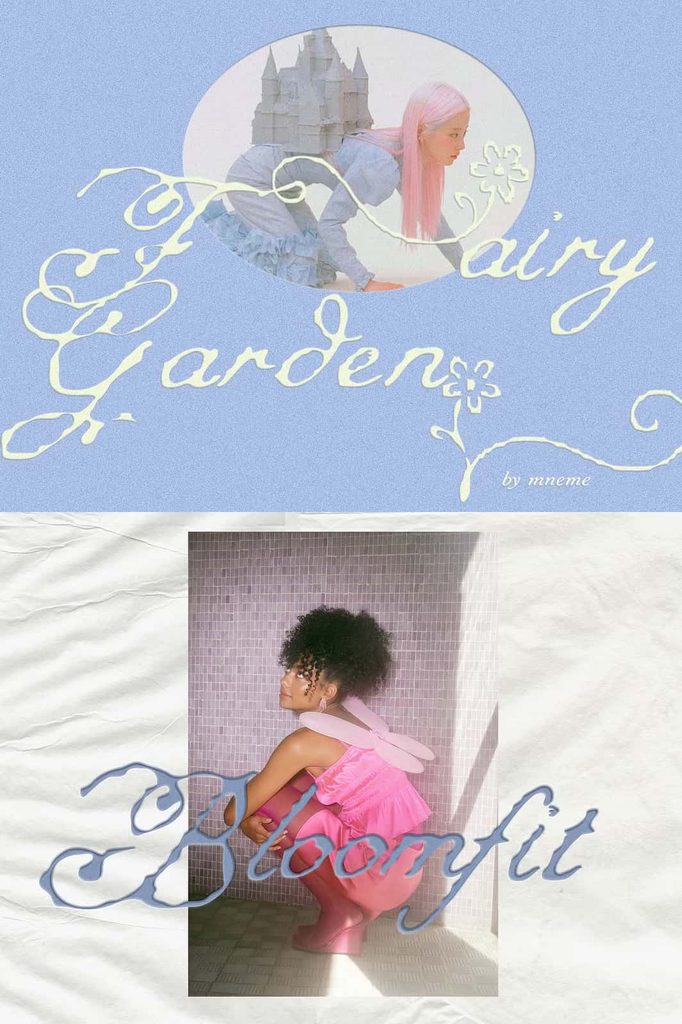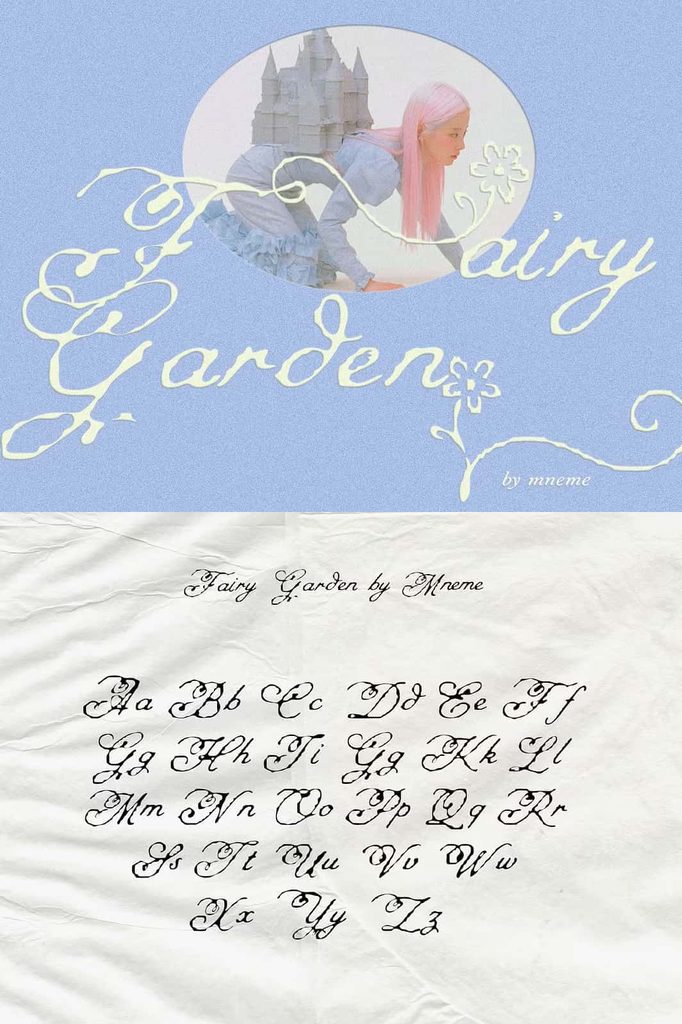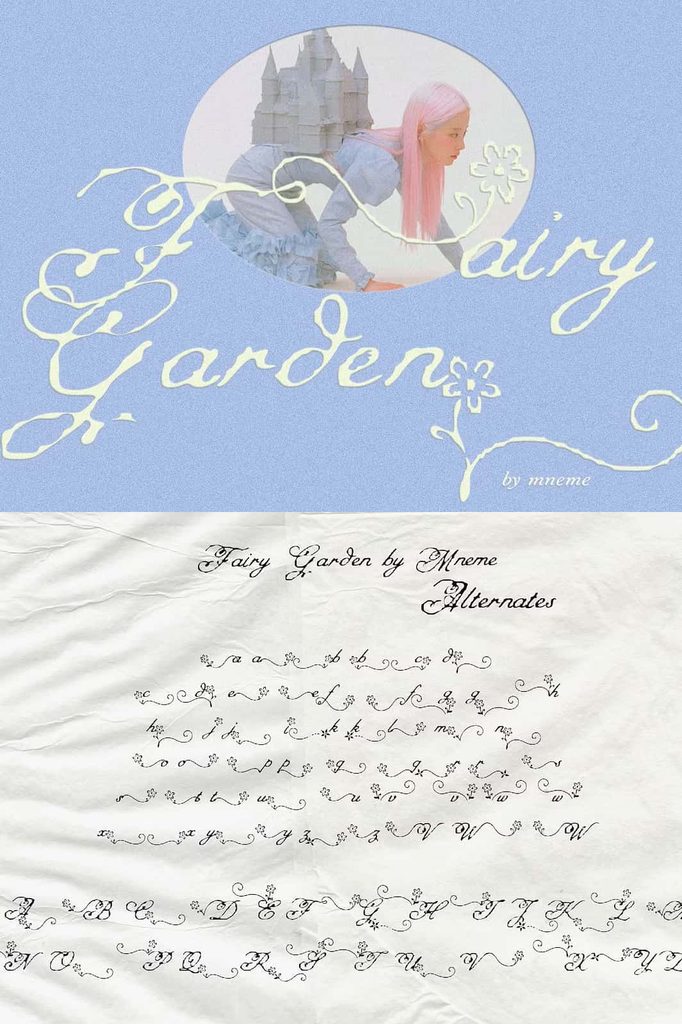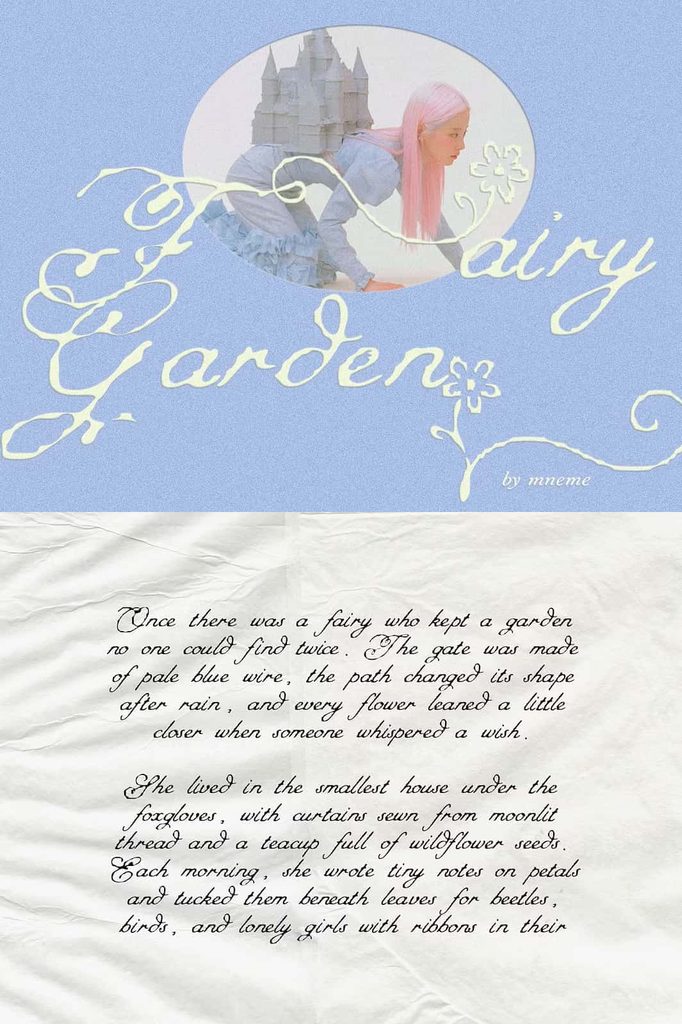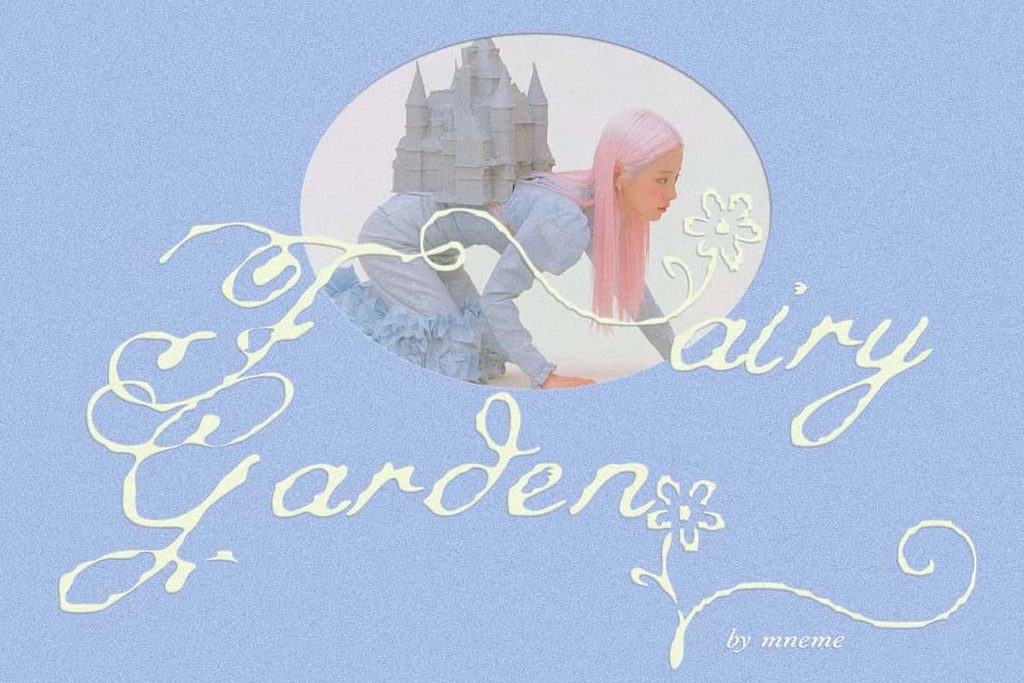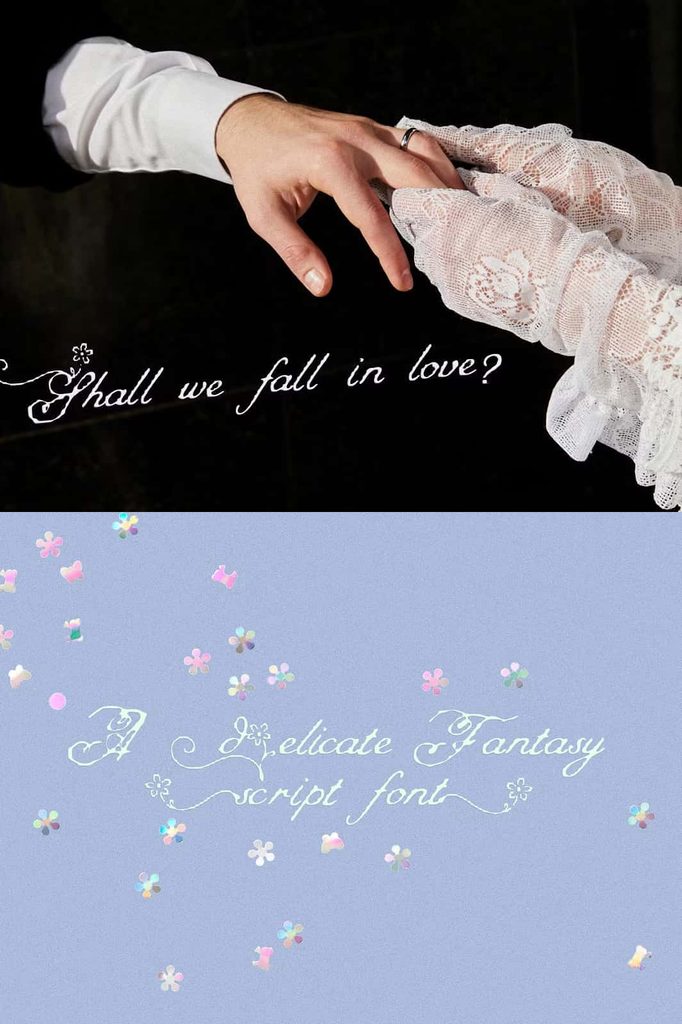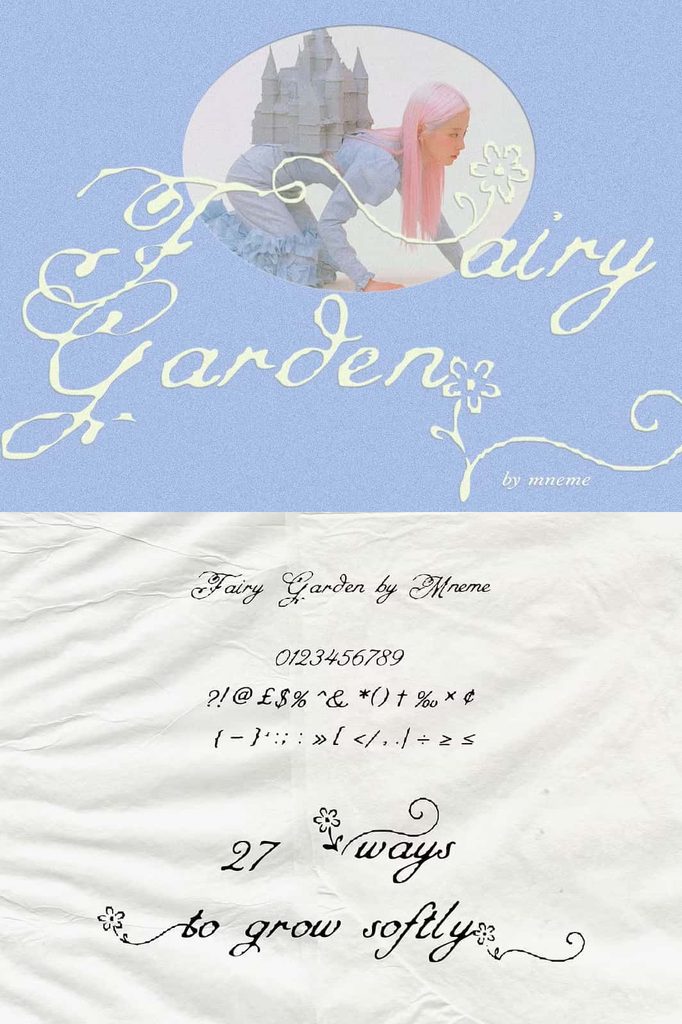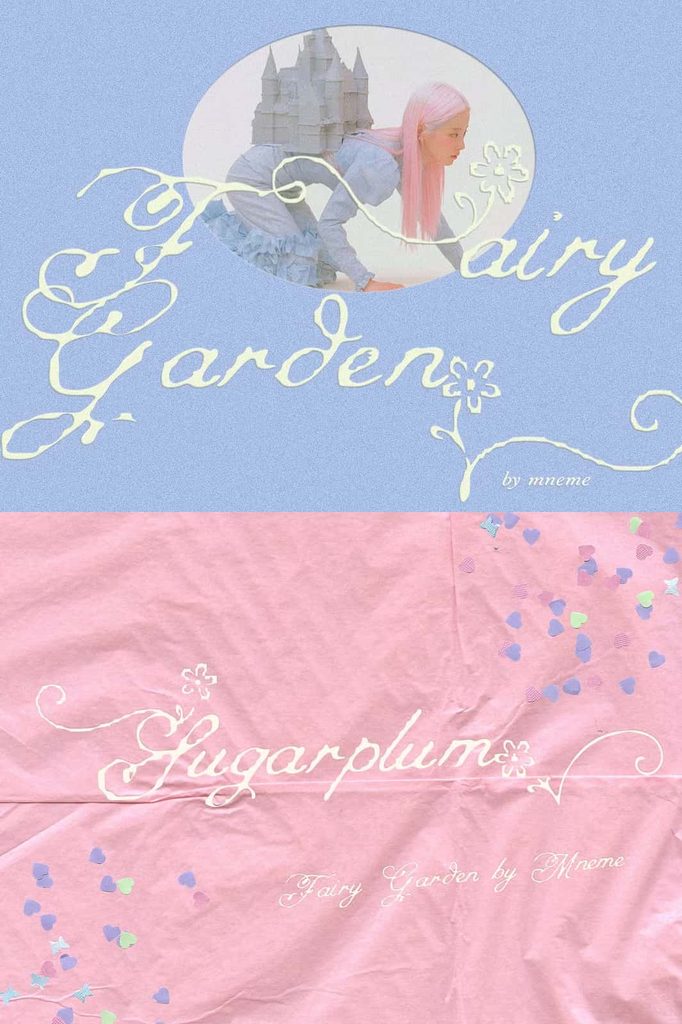
Fairy Garden Fantasy Script Font
Fairy Garden is a delicate fantasy script font that brings a soft, magical atmosphere to every creative project. Inspired by enchanted gardens, fairy tales, handwritten notes, and blooming flowers, this elegant typeface combines flowing letters, dreamy curls, and decorative details to create a wonderfully feminine aesthetic.
Fairy Garden transforms ordinary words into graceful visual expressions. Its gentle script style creates the impression of lettering written inside a beloved fairy book, while its soft curves and decorative flourishes add a subtle sense of enchantment. The result feels light, personal, romantic, and beautifully handcrafted.
Designers can use Fairy Garden for projects that need a delicate and imaginative personality. Create wedding stationery, feminine branding, greeting cards, invitations, nursery artwork, social media graphics, packaging, posters, or personalized gifts. Wherever your design needs a touch of magic, Fairy Garden can help establish the right mood.
A Delicate Script Inspired by Enchanted Gardens
Fairy Garden captures the quiet beauty of an enchanted garden. Imagine pale flowers blooming beneath soft moonlight, handwritten notes resting among petals, and whimsical stories unfolding between delicate leaves. The font translates that atmosphere into expressive typography that feels both elegant and playful.
Its flowing letterforms create a natural sense of movement. Instead of presenting each character as a rigid shape, the script connects the visual rhythm of words and encourages the eye to move smoothly from one letter to another. This quality makes Fairy Garden especially effective for names, short phrases, titles, and decorative lettering.
The floral-inspired details further strengthen its fantasy personality. They introduce a gentle decorative quality without making the overall design feel excessively heavy. As a result, Fairy Garden can support sophisticated compositions as easily as whimsical ones.
Soft Flowing Letters with Dreamy Curls
The defining character of Fairy Garden comes from its soft flowing forms and graceful curves. These details give the typeface an expressive handwritten quality that feels personal and intimate.
Dreamy curls add movement to important words and help create an elegant visual focal point. Use them to highlight names, titles, quotes, or special messages. When combined with delicate illustrations or botanical elements, the typography can become an integral part of the artwork rather than simply functioning as supporting text.
Create an Elegant Handwritten Effect
Fairy Garden makes it easy to create the feeling of carefully crafted handwriting without losing the decorative qualities expected from a fantasy typeface. Its flowing appearance works beautifully in designs where you want the typography to communicate emotion, softness, and individuality.
Use the font at larger sizes to reveal its curves and decorative personality. Large lettering can create an elegant centerpiece for invitations, posters, signs, and artwork. For smaller applications, use it selectively for short phrases or names to maintain visual clarity.
Perfect for Feminine and Romantic Designs
Fairy Garden naturally complements feminine design projects. Its delicate structure and graceful movement can communicate romance, elegance, softness, and creativity. This makes it an excellent option for designers working on wedding stationery, bridal branding, beauty products, lifestyle brands, and personalized gifts.
Use Fairy Garden to create romantic logos, elegant business names, product labels, thank-you cards, promotional graphics, and social media content. Its fantasy-inspired personality can help a brand stand apart from generic handwritten fonts.
The typeface also works well for projects that target audiences who appreciate handmade details and imaginative aesthetics. Pair it with botanical illustrations, soft textures, floral artwork, watercolor elements, or minimal layouts to build a cohesive visual identity.
Beautiful for Wedding Invitations and Stationery
Wedding designs often require typography that feels personal and memorable. Fairy Garden offers a graceful solution for couples who want to create a romantic and slightly whimsical atmosphere.
Use the font for names, wedding titles, invitation headlines, dates, quotes, menus, place cards, thank-you notes, and signage. Its flowing forms can add elegance to both printed and digital stationery.
Build a Romantic Wedding Suite
Use Fairy Garden consistently across your wedding materials to create a unified visual style. Apply it to the invitation first, then extend the same typography to menus, table numbers, seating charts, ceremony programs, favor tags, and thank-you cards.
Pair the script with a refined serif or clean sans serif for supporting information. This combination creates a clear hierarchy while allowing Fairy Garden to remain the decorative centerpiece.
Ideal for Fairy Tales and Children’s Designs
The magical personality of Fairy Garden makes it especially suitable for children’s projects and fantasy storytelling. Use it for children’s books, fairy-tale titles, character names, nursery artwork, birthday invitations, activity sheets, and imaginative educational materials.
Its delicate appearance can reinforce themes involving fairies, gardens, flowers, woodland adventures, princesses, magical creatures, and childhood dreams. Combine the font with illustrations of leaves, butterflies, stars, flowers, mushrooms, clouds, or other whimsical elements to create an immersive visual world.
Fairy Garden can also work beautifully for personalized nursery prints. Use a child’s name as the primary typographic element and surround it with soft botanical or fantasy-inspired illustrations.
Bring Magic to Branding and Packaging
Fairy Garden does not belong exclusively to invitations and children’s designs. Creative brands can use its distinctive personality to build memorable identities for products and services that emphasize beauty, imagination, craftsmanship, and femininity.
Consider using the font for beauty brands, handmade businesses, stationery shops, boutique products, floral businesses, gift companies, candles, artisan packaging, creative studios, and lifestyle brands.
On packaging, Fairy Garden can create an elegant focal point for product names and collection titles. Pair the script with understated supporting typography to prevent the design from becoming too decorative.
Creative Applications for Fairy Garden
The versatile fantasy character of Fairy Garden opens the door to many creative applications. Consider using it for:
- Wedding invitations and stationery
- Engagement announcements
- Birthday invitations
- Fairy-tale book covers
- Children’s books and illustrations
- Nursery wall art
- Feminine logo design
- Beauty and lifestyle branding
- Floral business branding
- Handmade product packaging
- Greeting cards
- Personalized gifts
- Quotes and inspirational artwork
- Posters and decorative prints
- Event stationery
Pair Fairy Garden with Complementary Fonts
Because Fairy Garden features an expressive script style, pairing it with a simpler font can create a more balanced composition. A clean sans serif can provide structure and readability, while an elegant serif can reinforce the romantic and sophisticated qualities of the script.
Use Fairy Garden for the primary decorative element and let the complementary typeface handle longer information. This approach works particularly well for invitations, packaging, menus, branding, and editorial layouts.
You can also experiment with scale. A large Fairy Garden headline paired with small, clean supporting text can create an elegant hierarchy. Alternatively, use the script sparingly as an accent within an otherwise minimalist design.
Create a Soft and Enchanted Visual Style
Fairy Garden works best when you allow its delicate personality to guide the surrounding design. Use generous spacing, subtle textures, botanical illustrations, and soft visual elements to reinforce its enchanted character.
For a more contemporary look, place the font within a clean layout and limit decorative elements. This lets the graceful letterforms provide most of the visual interest. For a more traditional fairy-tale aesthetic, combine the font with flowers, vines, stars, butterflies, and hand-drawn illustrations.
Why Choose Fairy Garden?
Choose Fairy Garden Fantasy Script Font when your project needs typography that feels delicate, feminine, magical, and personal. Its flowing letters, dreamy curls, and decorative character help designers create memorable visual experiences without relying on complicated layouts.
The font adapts easily to romantic stationery, fantasy artwork, children’s projects, feminine branding, packaging, and personalized designs. Its handmade appearance adds warmth, while its elegant curves maintain a polished finish.
Final Thoughts on Fairy Garden Fantasy Script Font
Fairy Garden brings the charm of an enchanted garden into typography. Its soft flowing letters, dreamy curls, and delicate decorative details create a fantasy script that feels like a handwritten message from a magical storybook.
From wedding invitations and romantic stationery to children’s books, nursery artwork, feminine branding, and creative packaging, Fairy Garden gives designers a versatile way to add softness and personality to their work. Pair it with botanical illustrations, elegant supporting fonts, and carefully considered layouts to unlock its full potential.
If you want to create designs that feel light, graceful, imaginative, and softly decorative, Fairy Garden offers an enchanting typographic style. Let its flowing forms transform simple words into beautiful visual stories filled with charm, warmth, and a touch of magic.